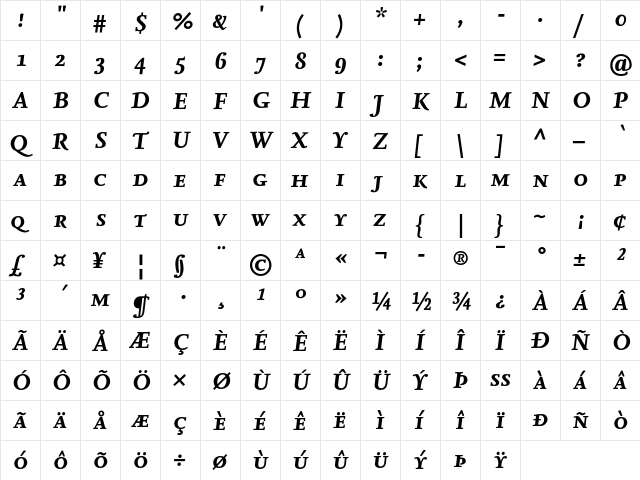
NexusSerif-BoldItalicSC Regular Font Preview
NexusSerif-BoldItalicSC Regular
NexusSerif-BoldItalicSC Regular Font Details
Design Context for NexusSerif-BoldItalicSC Typeface
NexusSerif-BoldItalicSC brings classic typographic sensibility to the table — its serifs and measured letterforms reflect centuries of print heritage. Its italic angle brings a sense of urgency and motion to the letterforms. The heavy weight commands attention and anchors typographic hierarchies.
Pro Tip: Set NexusSerif-BoldItalicSC with slightly loose tracking in headlines to let each letterform's detail read clearly at display sizes.